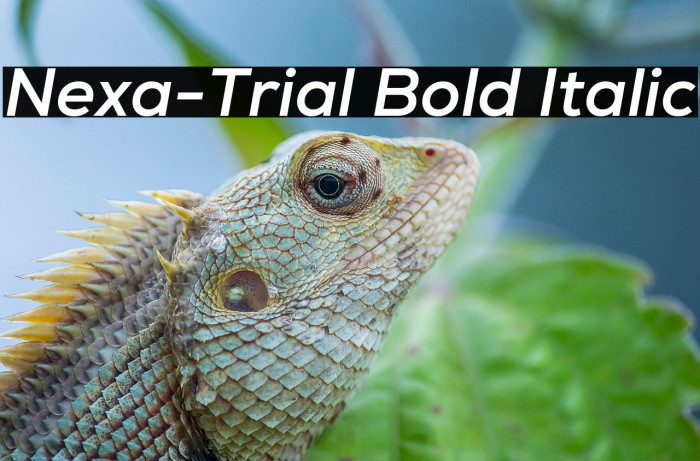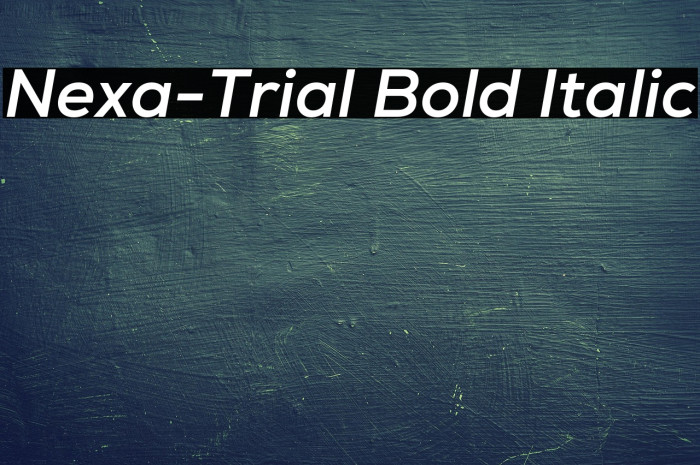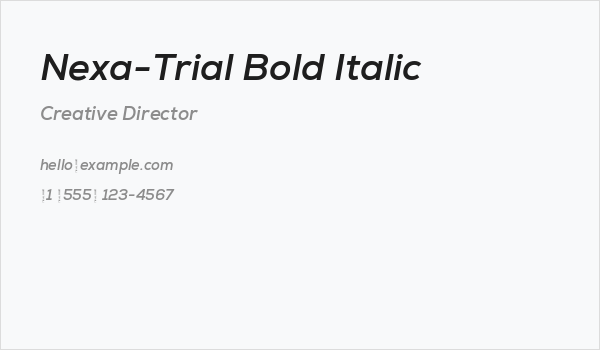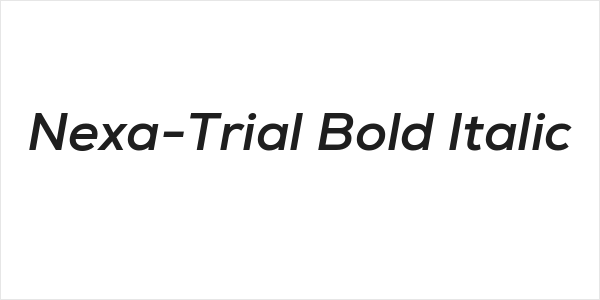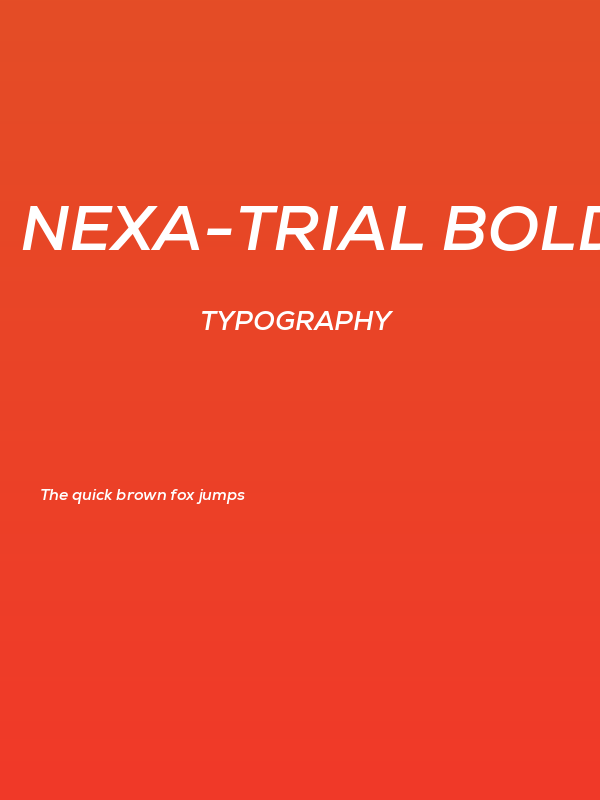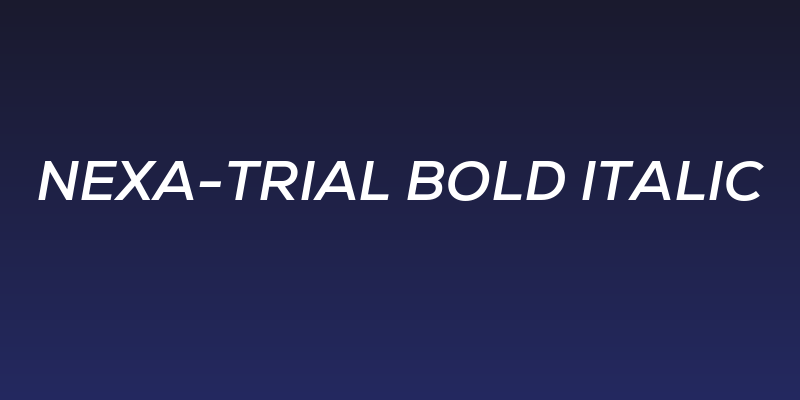
Nexa-Trial Bold Italic Font
Nexa-Trial Bold Italic Description
This font features a modern and sleek design with a bold and italicized style. The characters are slightly slanted, giving a dynamic and forward-moving appearance. The strokes are consistent and smooth, with a medium contrast that provides clarity and readability. The font's geometric structure is evident in its clean lines and balanced proportions, making it suitable for contemporary design projects. The numerals are distinct and align well with the overall style, while the special characters maintain the same aesthetic, ensuring uniformity across different text elements.
| Use Case | Headlines, Logos, Digital Media |
| Proposed Projects | Ideal for branding, advertising, digital media, and modern web design projects. |